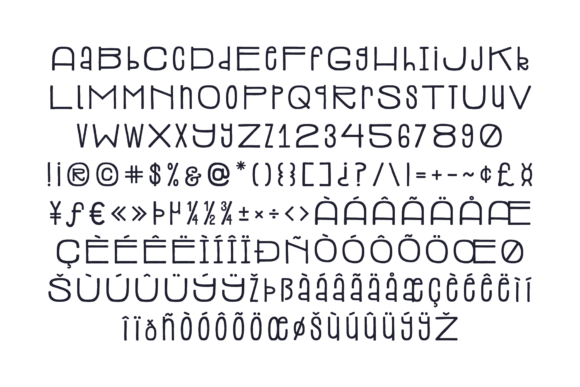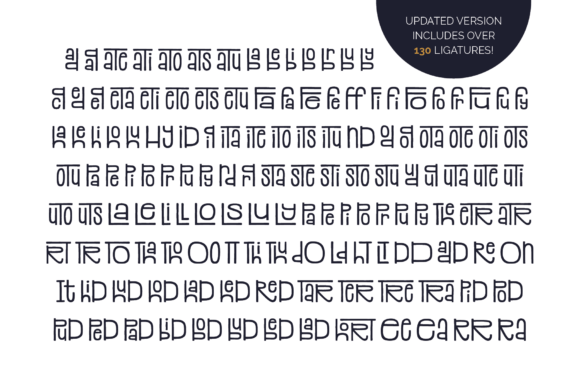
Stacked is a fun and unique font that comes with over 130 ligatures. You can mix and match until you find just the look you want. Works great for big, bold headers or typographic posters.
Stacked Font